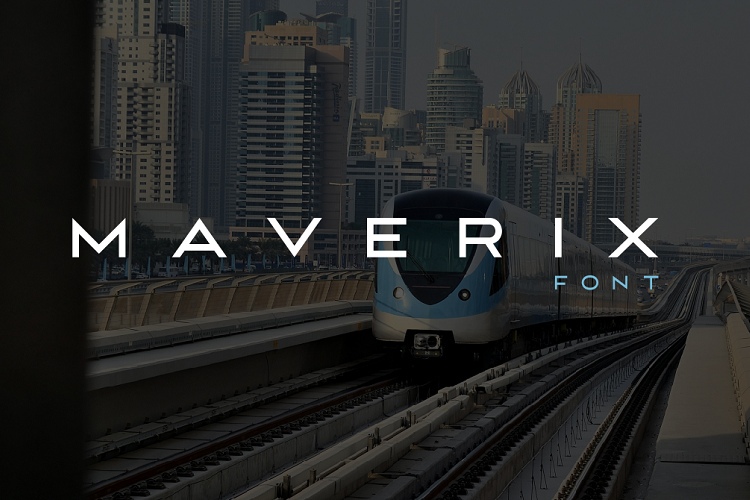
Maverix Font
Maverix Font is perfect for innovative startup branding, disruptive technology companies, independent consulting firms, revolutionary product launches, nonconformist creative agencies, and pioneering business ventures. This bold typeface excels in venture capital presentations, entrepreneurship materials, innovation conference promotions, and any application where independent thinking and revolutionary spirit create powerful connections with forward-thinking entrepreneurs and industry disruptors.
What makes Maverix Font so exciting is its remarkable ability to embody the fearless independence and revolutionary spirit of business mavericks through boldly unconventional letterforms that challenge traditional design rules. The font features rebellious curves, independent proportions, and pioneering character shapes that reflect the courage to break boundaries and forge new paths. Its maverick presence makes it perfect for brands that dare to be different and lead industry transformation.
Maverix Font comes in a revolutionary family including Light, Regular, Medium, Bold, and Disruptor weights. Each style features complete uppercase and lowercase character sets, innovation symbols, pioneering numerals, and rebellious punctuation marks. The font family also includes unconventional alternates, maverick ligatures, and revolutionary variations that allow designers to create truly groundbreaking communications with entrepreneurial appeal and professional disruption quality.
This pioneering typeface transforms business communications into powerful manifestos of innovation and entrepreneurial courage. Maverix Font Free Download provides startup companies and innovative organizations with essential typography that celebrates independent thinking while serving contemporary business disruption needs. Whether you're developing brands for tech startups, creating materials for innovation conferences, or designing presentations for venture capital pitches, this font delivers authentic maverick resonance with revolutionary energy.
The font's disruptive character makes it particularly effective for startup accelerators, innovation consultants, venture capital firms, and pioneering technology companies. Its bold readability ensures that Maverix Font communicates clearly while maintaining its distinctive independent personality. The font's ability to inspire courage and entrepreneurial thinking makes it an invaluable compass for any project seeking to celebrate business innovation and connect with entrepreneurs through the timeless appeal of independent spirit, revolutionary courage, and the transformative power of maverick leadership in business disruption.